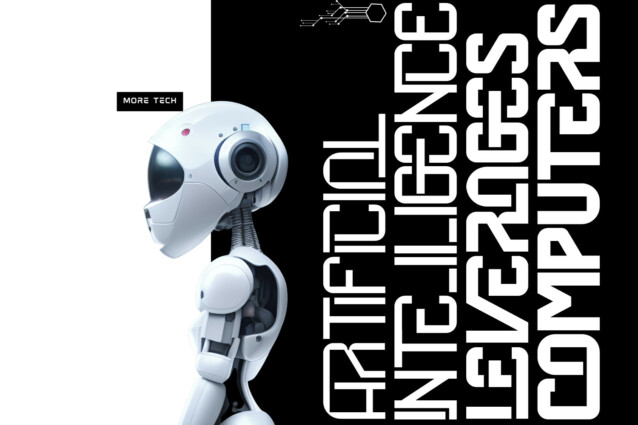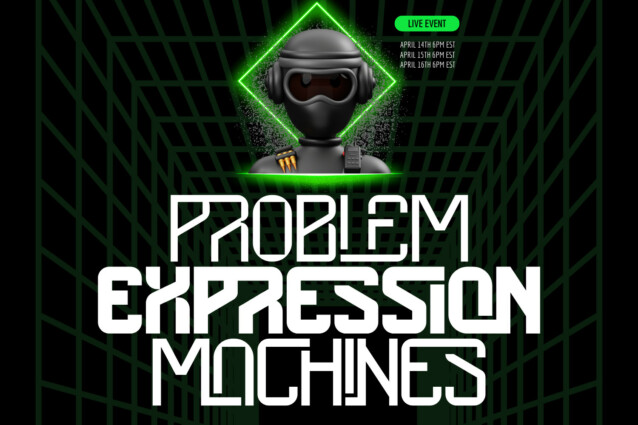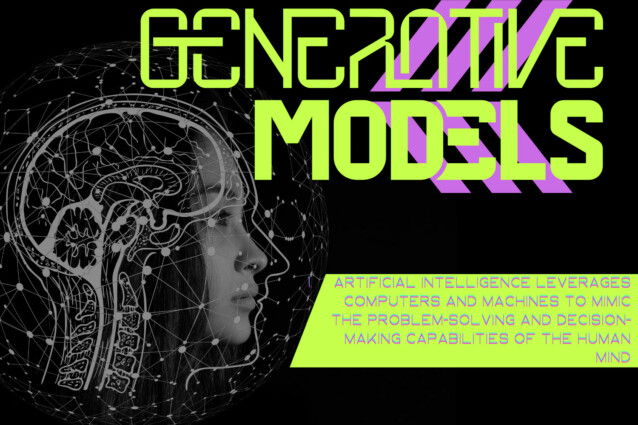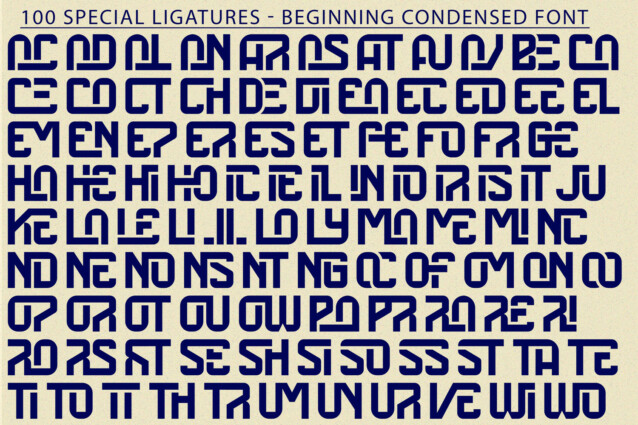
Beginning Condensed Font
Beginning Condensed Font is a condensed sans-serif family. Regular stroke, fun character with are 100 of ligatures. To give you an extra creative work. It’s has loads of options to play around with. Included in the glyph set is Small-Caps, a Stylistic Uppercase Superscript, Stylistic Alternates and Circled Numbers. This is a perfect choice for creating logotypes, branding, headlines, corporate identities, and marketing materials for web, digital & print alike.
Beginning Condensed was built with OpenType features and includes 100 ligatures, alternate, numbers, punctuation, and it also supports other languages.
AC AD AL AN AR AS AT AU AV BE CA CE CH CO CT DE DI EA EC ED EE EL EM EN EP ER ES ET FE FO FR GE HA HE HI HO IE IC IL IN IO IR IS IT JU KE LA LE LI LL LO LY MA ME MI NC ND NE NG NO NT NS OC OF OM ON OO OP OR OT OU OW PA PR RA RD RE RI RO RS RT SE SH SI SO SS ST TA TE TH TI TO TR TT UM UN UR VE WI WO